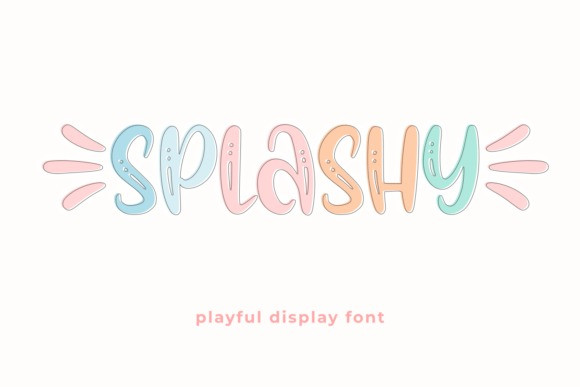
Splashy Display Font
Designer: Abodaniel
Splashy Display Font is a playful handwritten typeface made to bring instant cheer to your designs. With its loose strokes and friendly rhythm, Splashy feels natural and spontaneous—like words written in a happy moment.
The letterforms are simple yet expressive, giving your text a lively personality without becoming messy. Splashy is easy to read and full of charm, making it perfect for kids’ projects, social media posts, packaging, quotes, stickers, and fun branding.
If you’re looking for a fresh handwritten font that feels light, joyful, and full of character, Splashy is ready to make your designs smile.